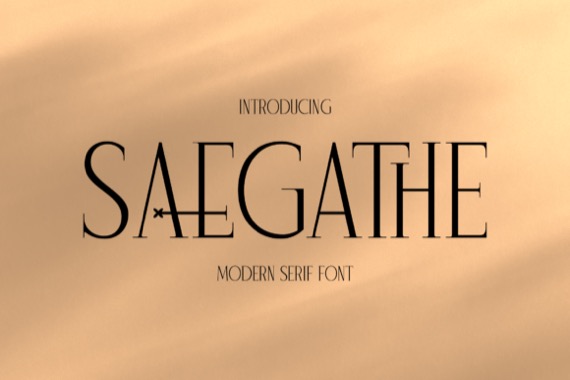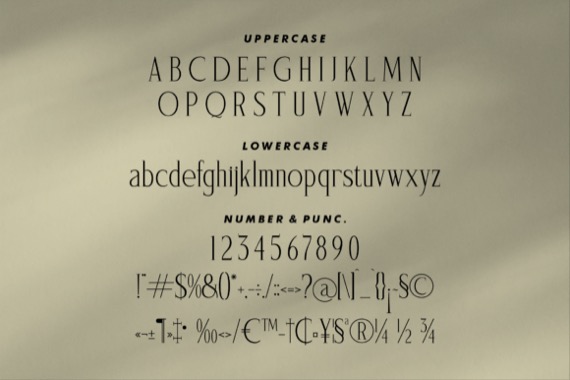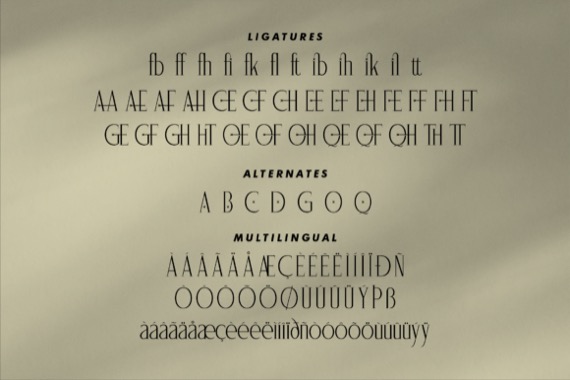
Saegathe is a modern and elegant serif font from Storytype Studio, perfect for a beautiful & luxurious logo, book or movie title design, fashion brand, magazine, clothes, lettering, quotes, and so much more.
Saegathe Serif Font